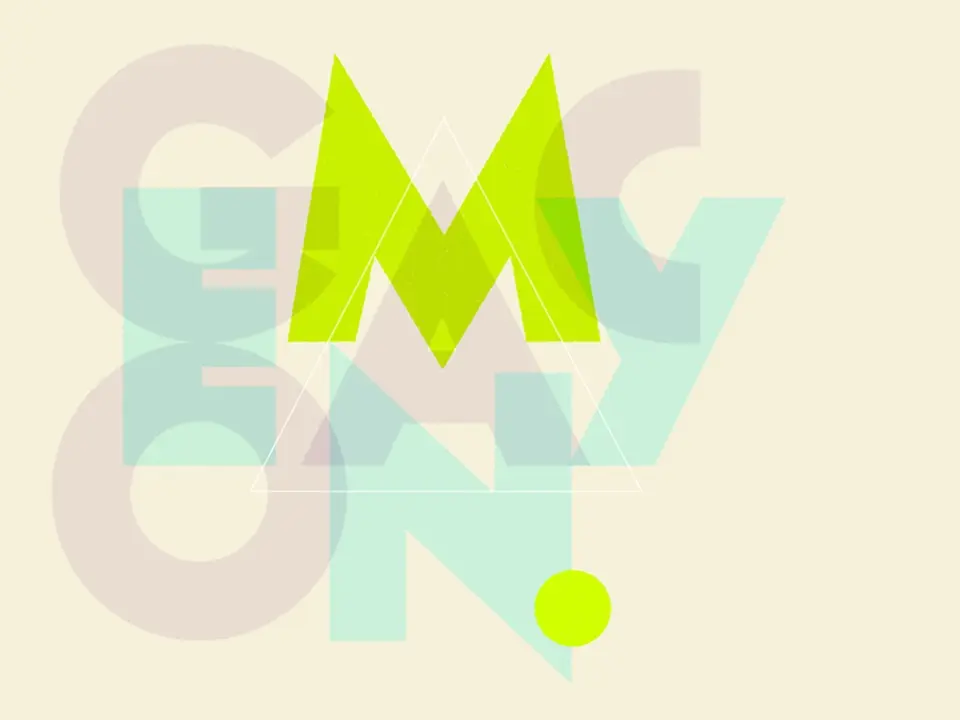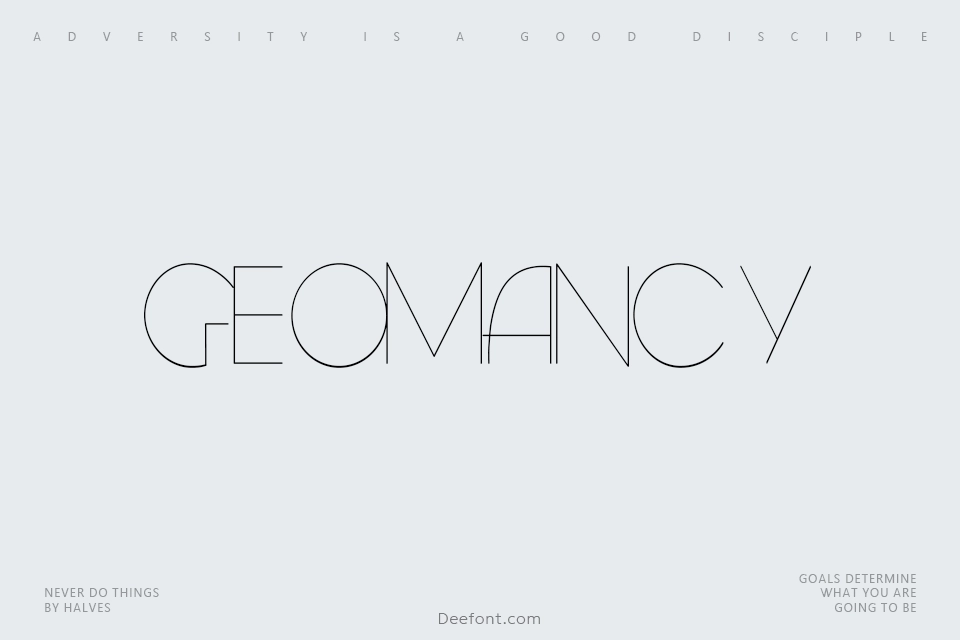
Geomancy Font
Geomancy is a chunky, retro geometric typeface that harks back to French and American Art Deco design. With letterforms drawn directly from vintage posters and period ephemera, this all-uppercase font features numerous alternates and ligatures for a hand-painted aesthetic. Available in two complementary weights—Extra Bold and Hairline—that work beautifully together or independently, Geomancy brings distinctive retro elegance to creative projects and display typography with its bold geometric shapes and sophisticated styling.